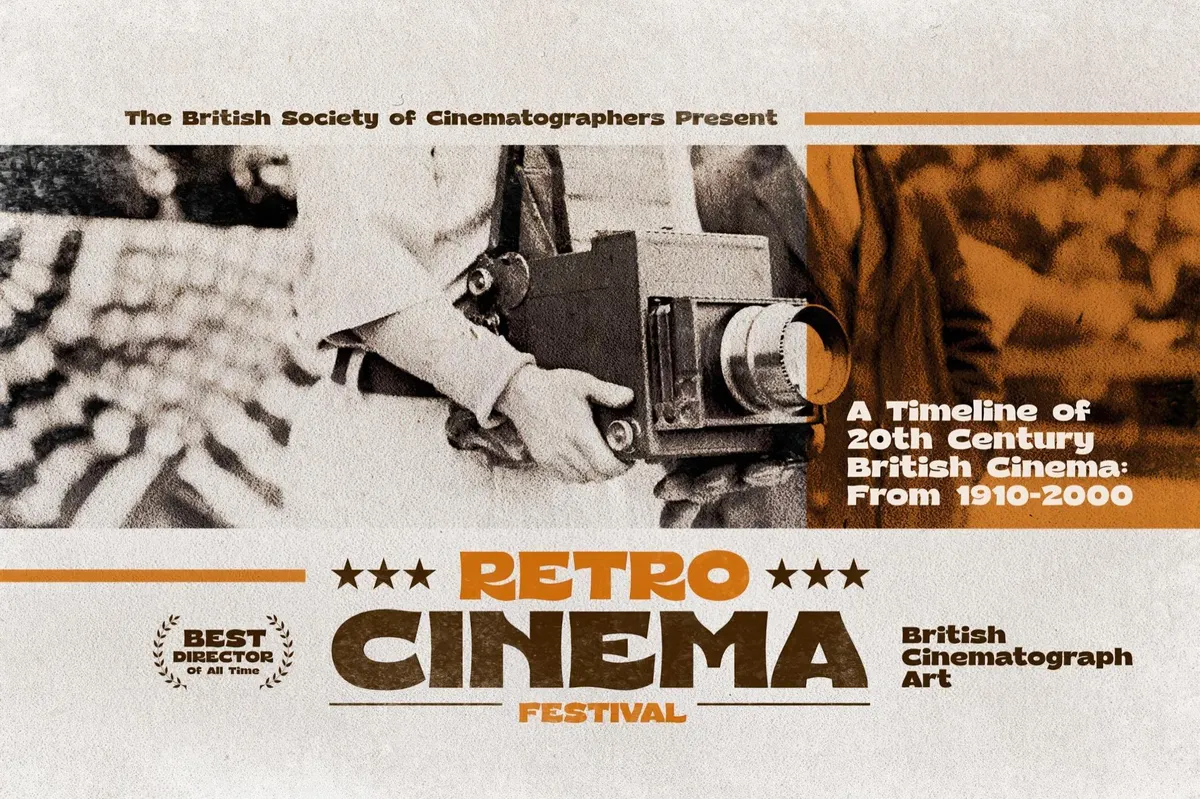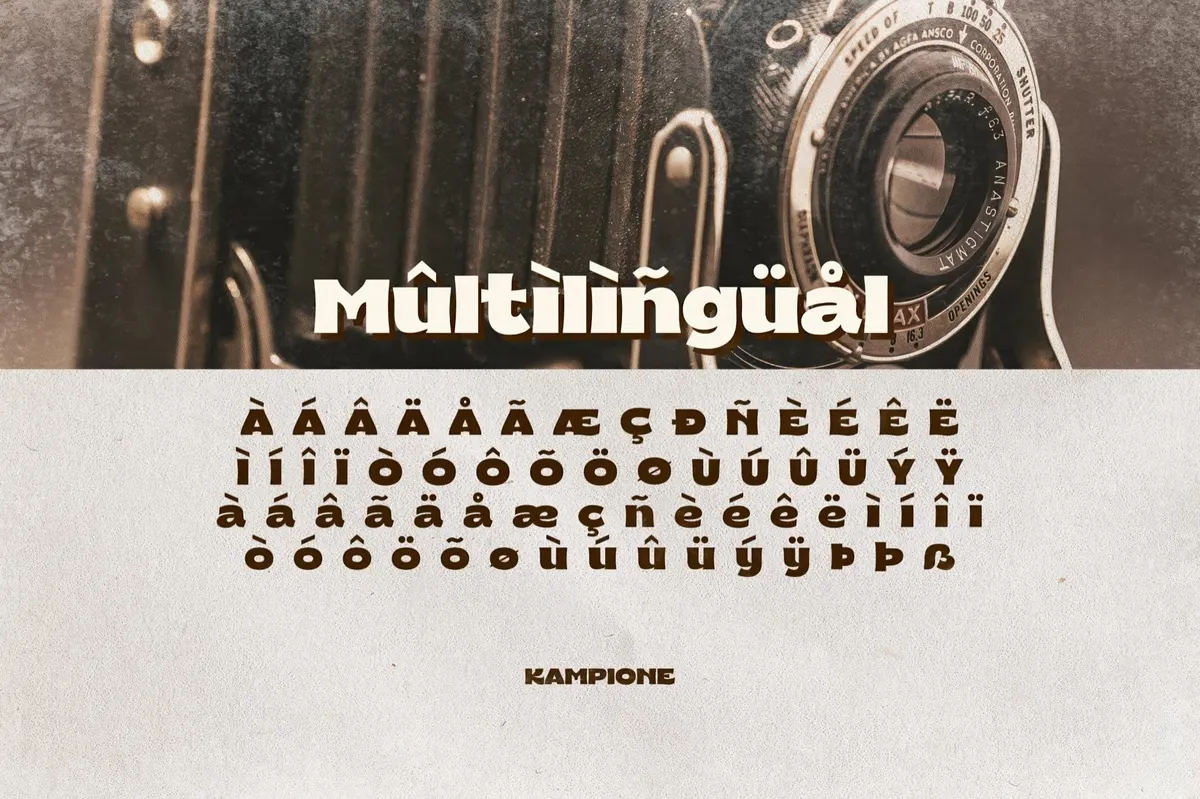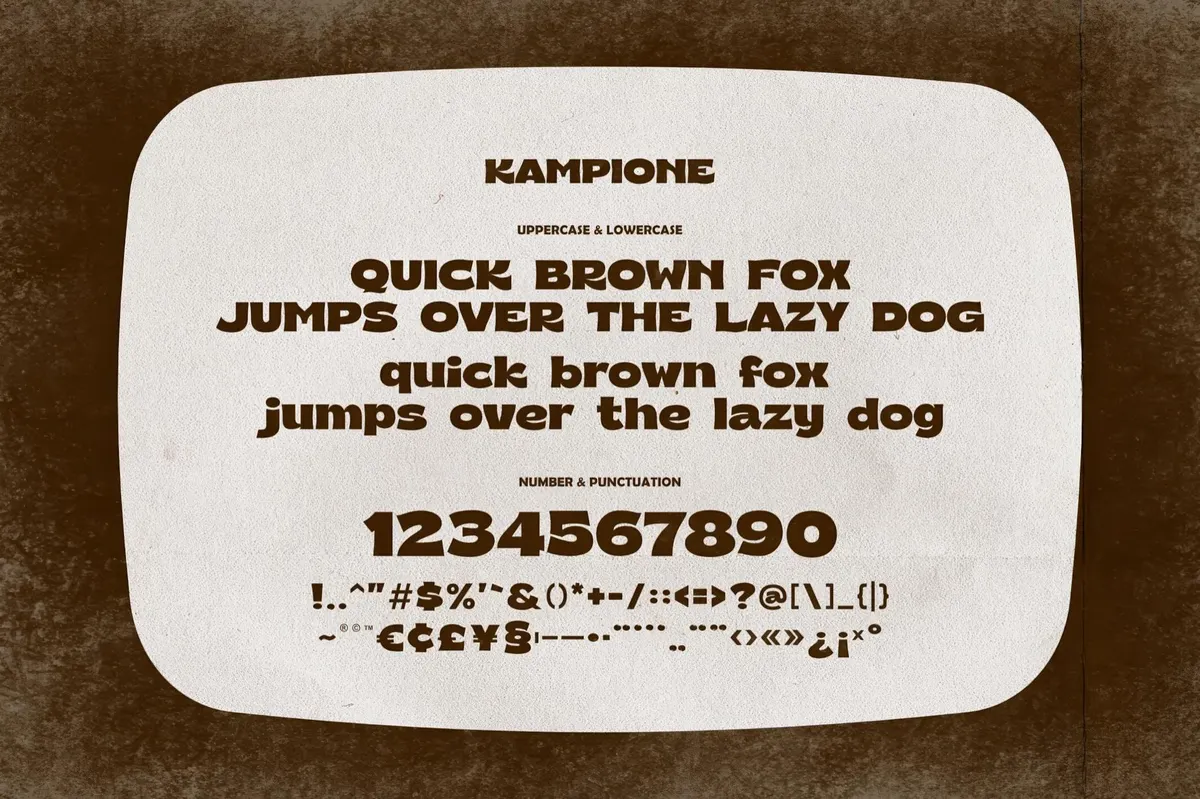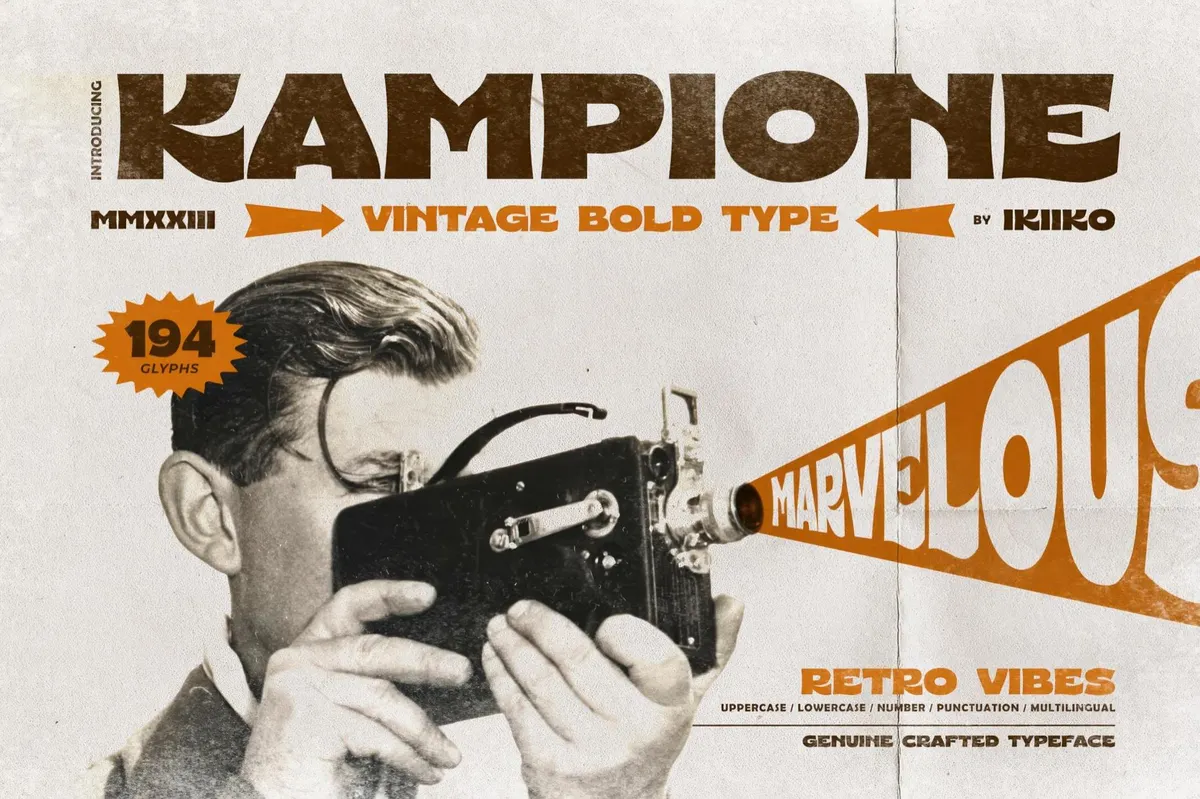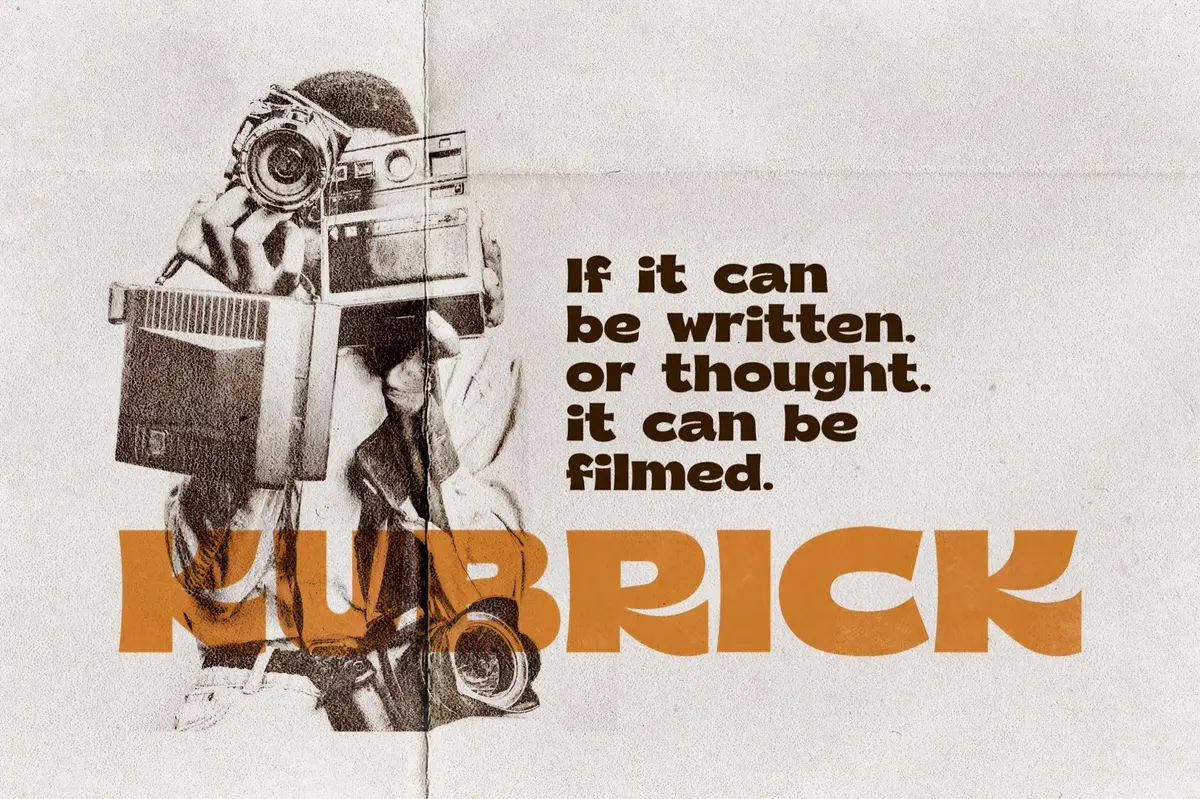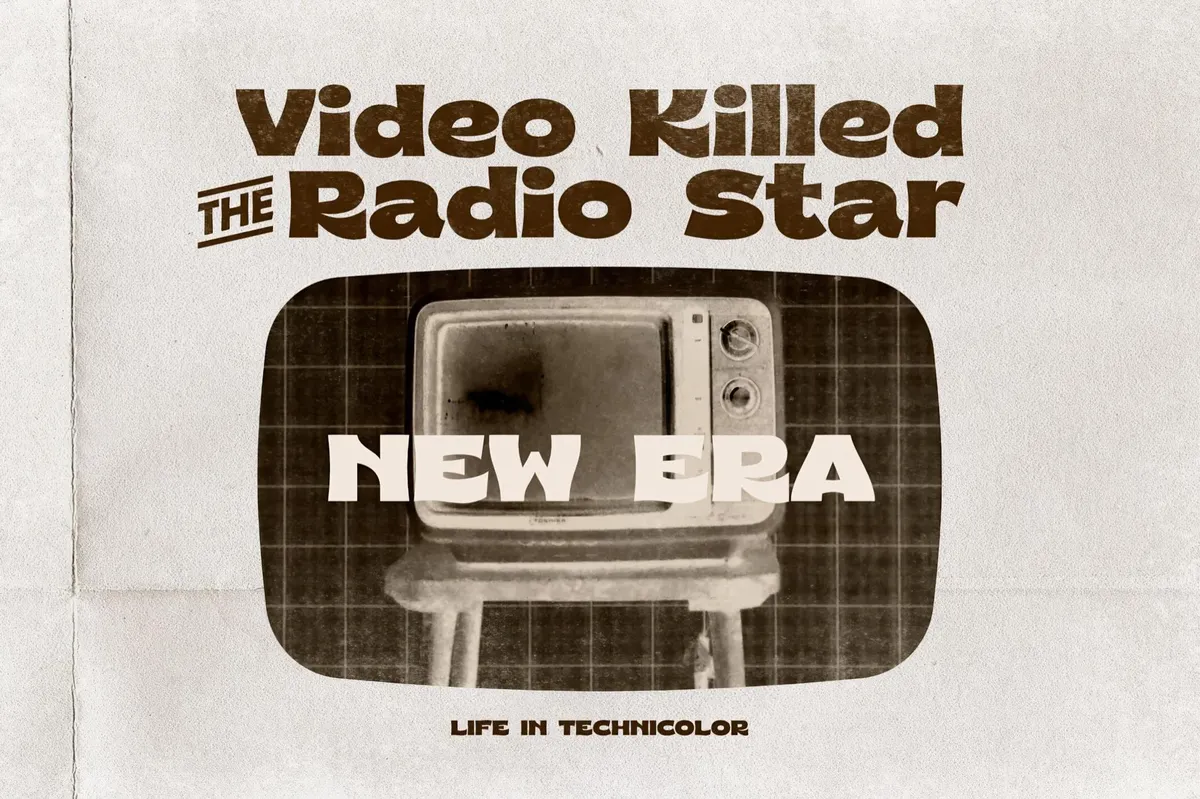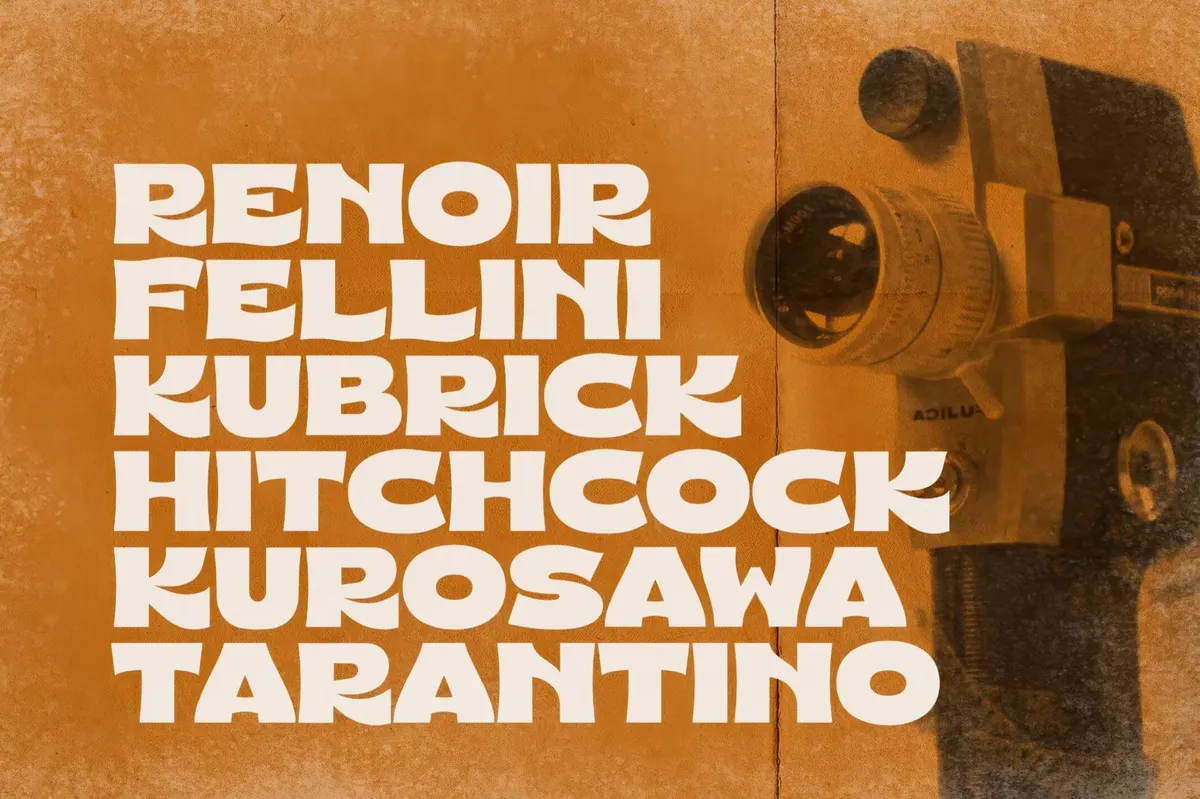
Kampione — Vintage Bold Type
Designed on the verge of early 20th-century typography and printed products of the 40s-60s, Kampione is an ode to vintage typography. Its strong dramatic letterforms have perceived the time-tested clean look, allowing a designer to revive the past decades in their projects. A character set features uppercase and lowercase letters, punctuation, numerals, and multilingual support — a full pack. The best thing about Kampione is its borderless versatility, so it will suit different styles and designs. E.g., black-and-white photos & cards, movie posters, movie titles, logos, packaging, magazine covers, apparel, stationery, and more.